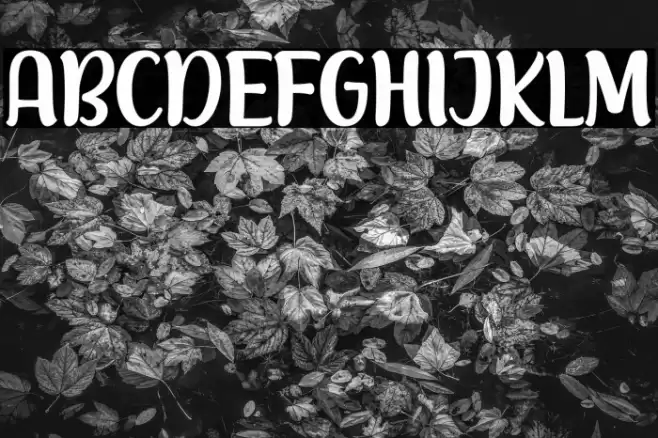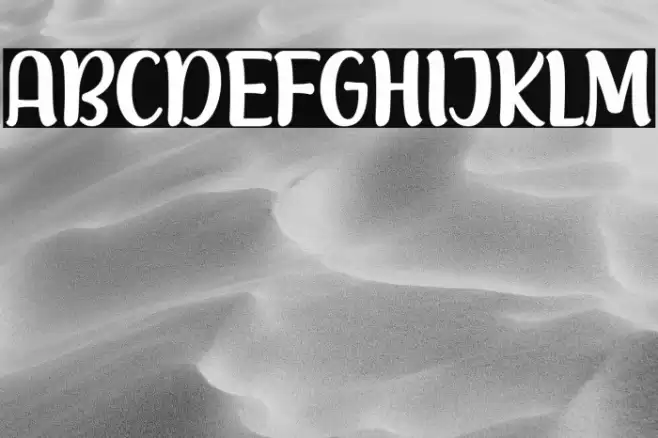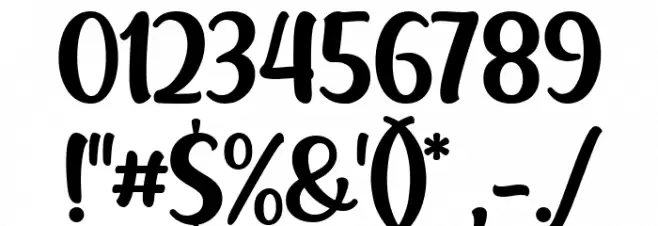
Racy Mango Font
Racy Mango Description
This font features a playful and bold script style, characterized by its smooth, flowing curves and slightly exaggerated strokes. The uppercase letters exhibit a consistent height with rounded edges, while the lowercase letters maintain a cohesive and harmonious appearance. The numbers are bold and easy to read, complementing the overall style. Special characters are designed with the same playful flair, making them stand out. The font's design is both modern and approachable, suitable for a variety of creative applications.
A playful, bold script font with smooth curves and a modern flair from Uncategorized fonts.
- Proposed Projects: Ideal for branding projects, playful invitations, children's books, and creative posters.
- Use Case: Logos, Headlines, Creative projects